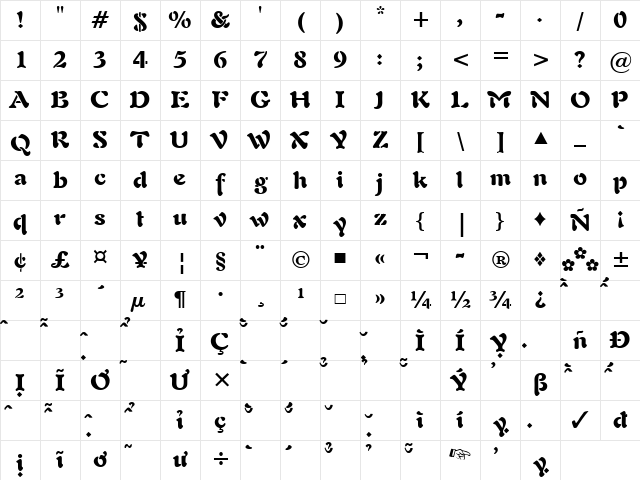
Complete VNI-Freeform Bold glyph index. Displaying only characters natively supported by VNI-Freeform Bold font.
VNI-Freeform is a composed and adaptable typeface that performs quietly and consistently across a wide range of design contexts. Its bold stroke weight gives it real presence on the page.